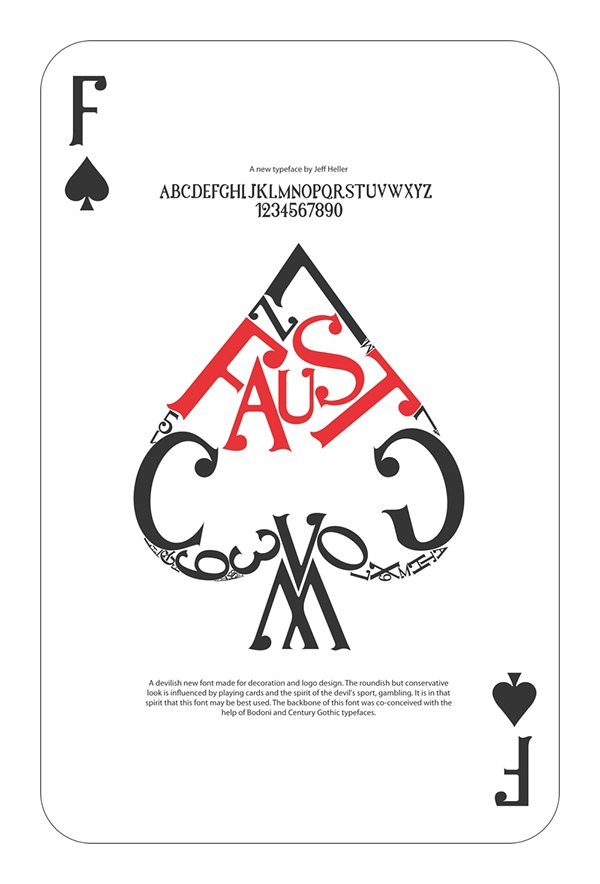
While other kids drew stick figures in high school, I drew the alphabet. Typography is a long-lasting fascination, and I was given the opportunity to produce a typeface for a film project. Following the theme of a dangerous demon-influenced gambler, "Faust," the typeface, was a labor of love.
A card-shaped poster was designed to illustrate the theme of the type as well as its practical purposes. A slightly modified version was also set to be the film's poster.
A devilish new font made for decoration and logo design. The roundish but conservative look is influenced by playing cards and the spirit of the devil's sport, gambling. It is in that spirit that this font may be best used. The backbone of this font was co-conceived with the help of Bodoni and Century Gothic typefaces.
This poster was designed as a reference to the classical art found on the back of Hoyle playing cards. It includes a majority of the characters in various positions and rotations, but was produced without artificial scaling.